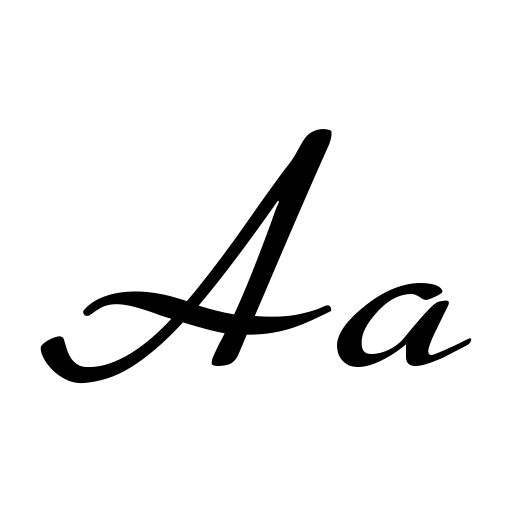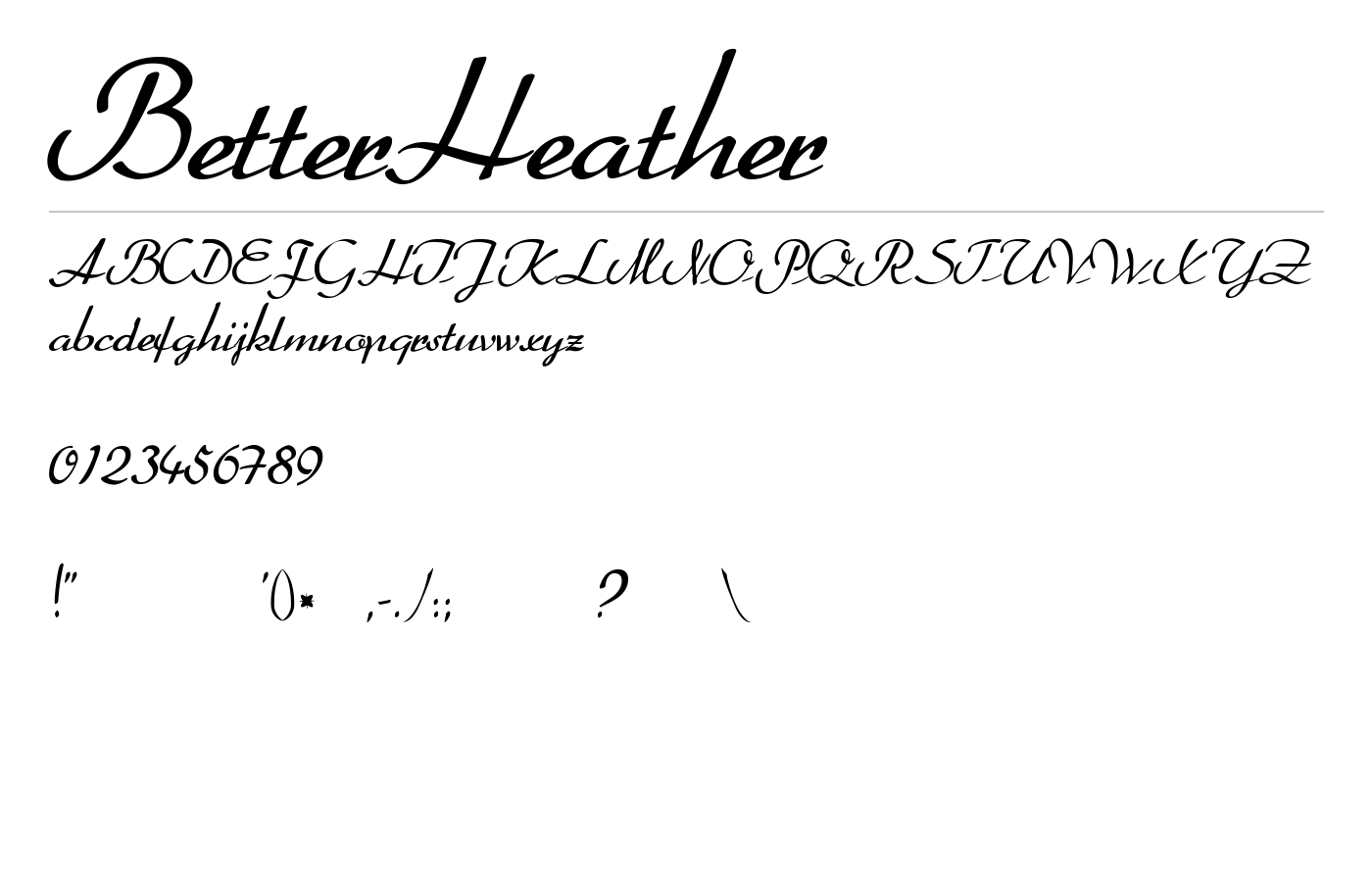
BetterHeather is an elegant script font characterized by its flowing, calligraphic strokes and moderate contrast between thick and thin lines. It features a refined, handwritten style with graceful uppercase letters and smooth, single-story lowercase forms, making it ideal for sophisticated branding, invitations, and headlines that need a touch of classic charm. This font works beautifully in designs seeking a timeless, stylish, and personal feel.
BetterHeather Font
About BetterHeather Font